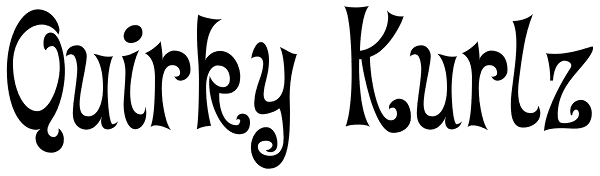
Quirky Kurlz
Quirky Kurlz is a cute, curly, vintage font. It's light hearted and funny, rounded and retro. Rounded characters, curly loops and undulating baseline work together to give a lively, look-at-me impression. Use Quirky Kurlz for branding, packaging...